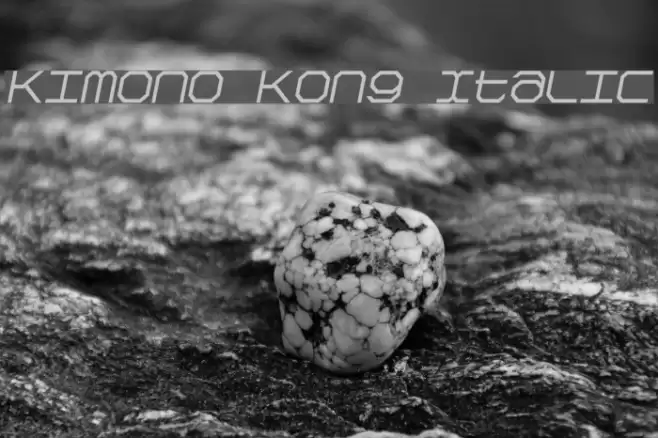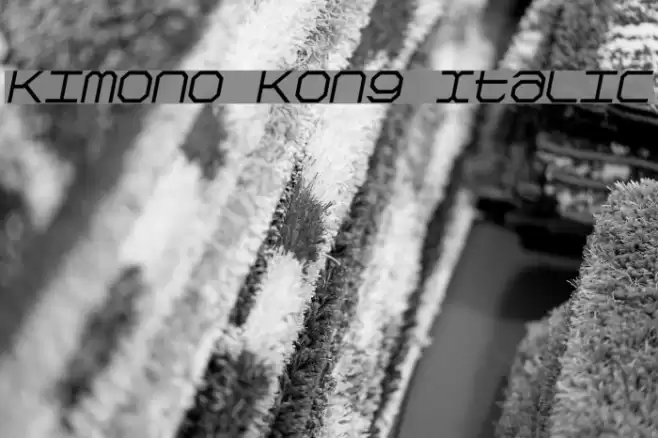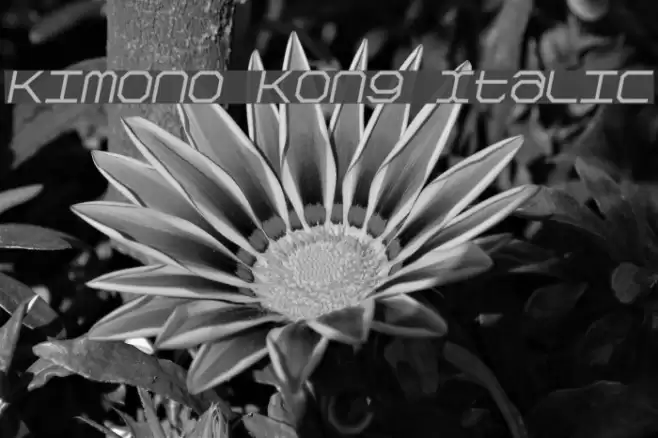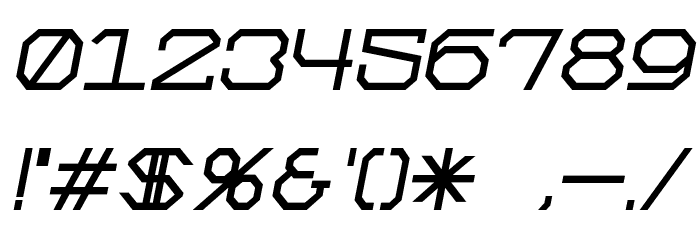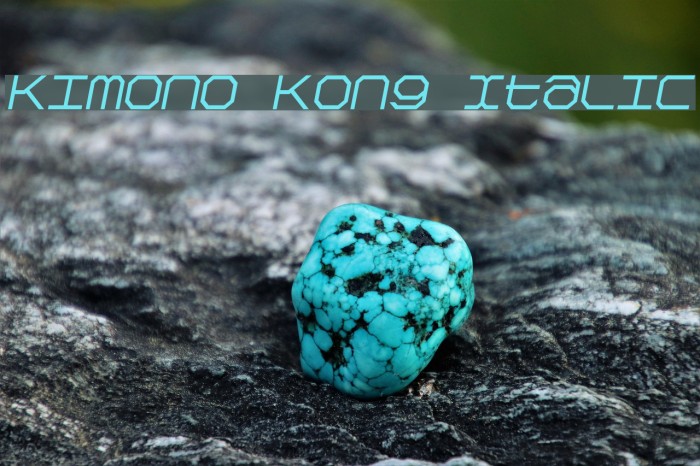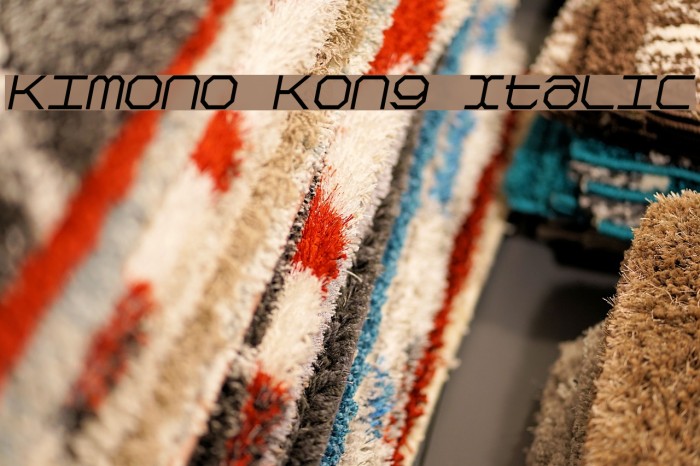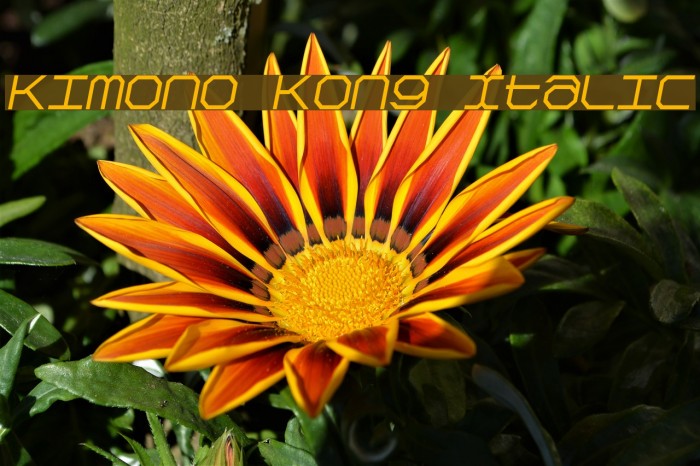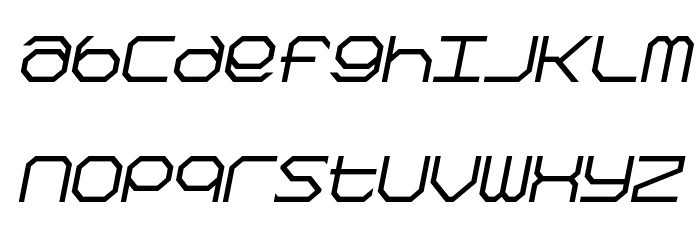
Kimono Kong Italic Font
Kimono Kong Italic Description
This font features a unique geometric style with angular and sharp edges, giving it a futuristic and modern appearance. The characters are italicized, adding a dynamic and forward-leaning aspect to the text. The uppercase and lowercase letters maintain a consistent design, with a distinct emphasis on angularity and straight lines. Numbers and special characters follow the same design principles, ensuring uniformity across all glyphs. The font's design is bold, making it stand out in any context. Its structured and mechanical look makes it suitable for projects that require a modern and edgy feel.
A geometric, italicized font with angular edges and a modern, futuristic style from Futuristic fonts.
- Proposed Projects: Ideal for technology branding, sci-fi themed projects, video game titles, and modern advertising.